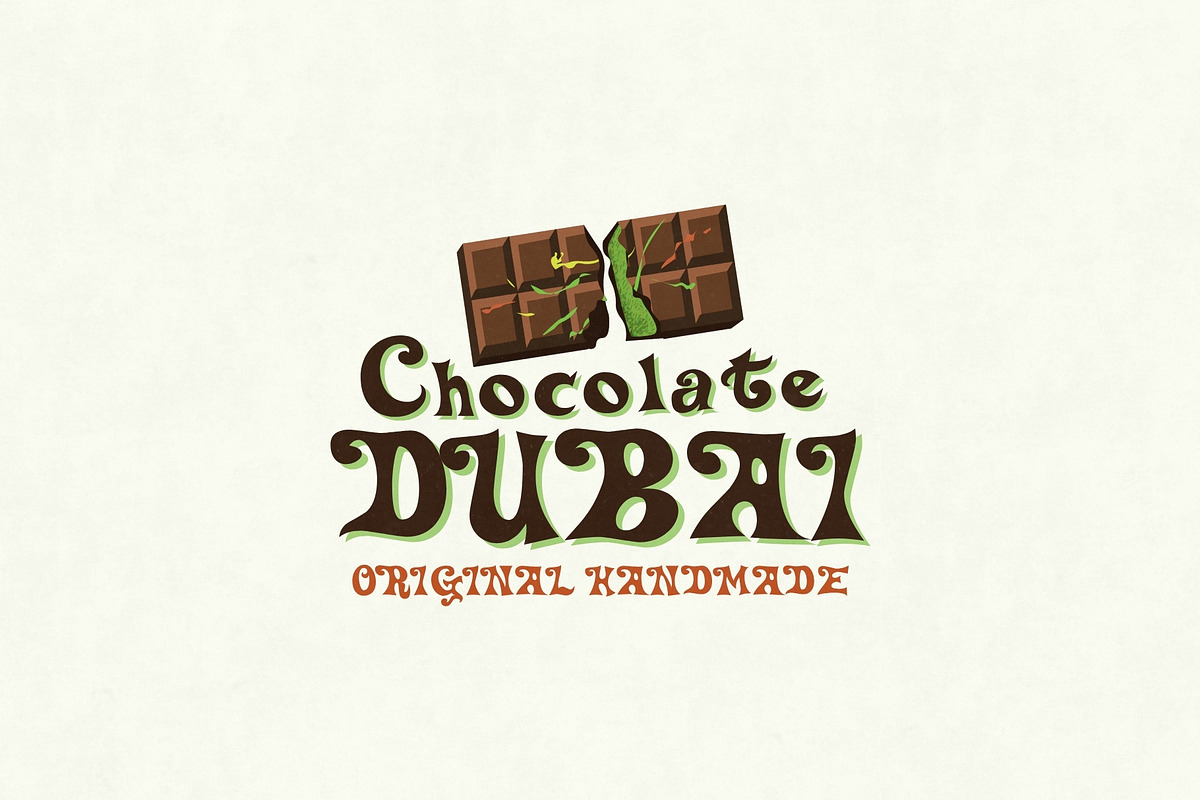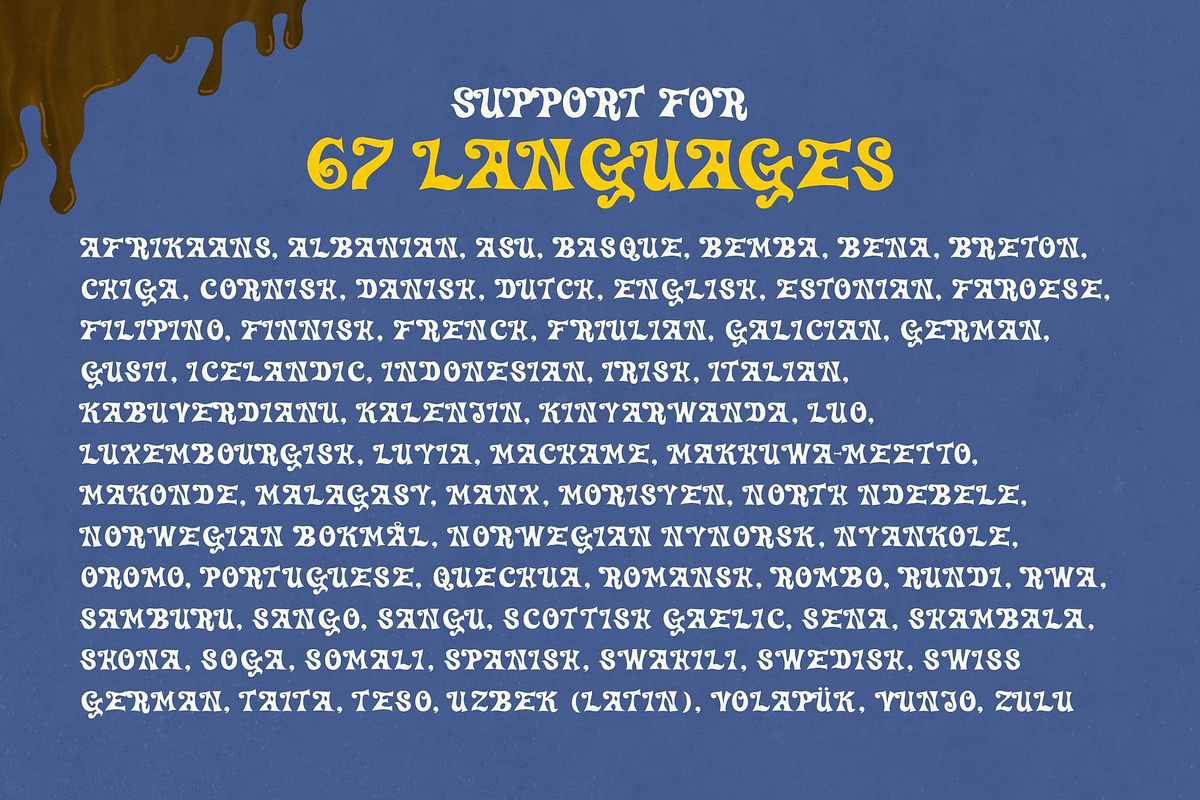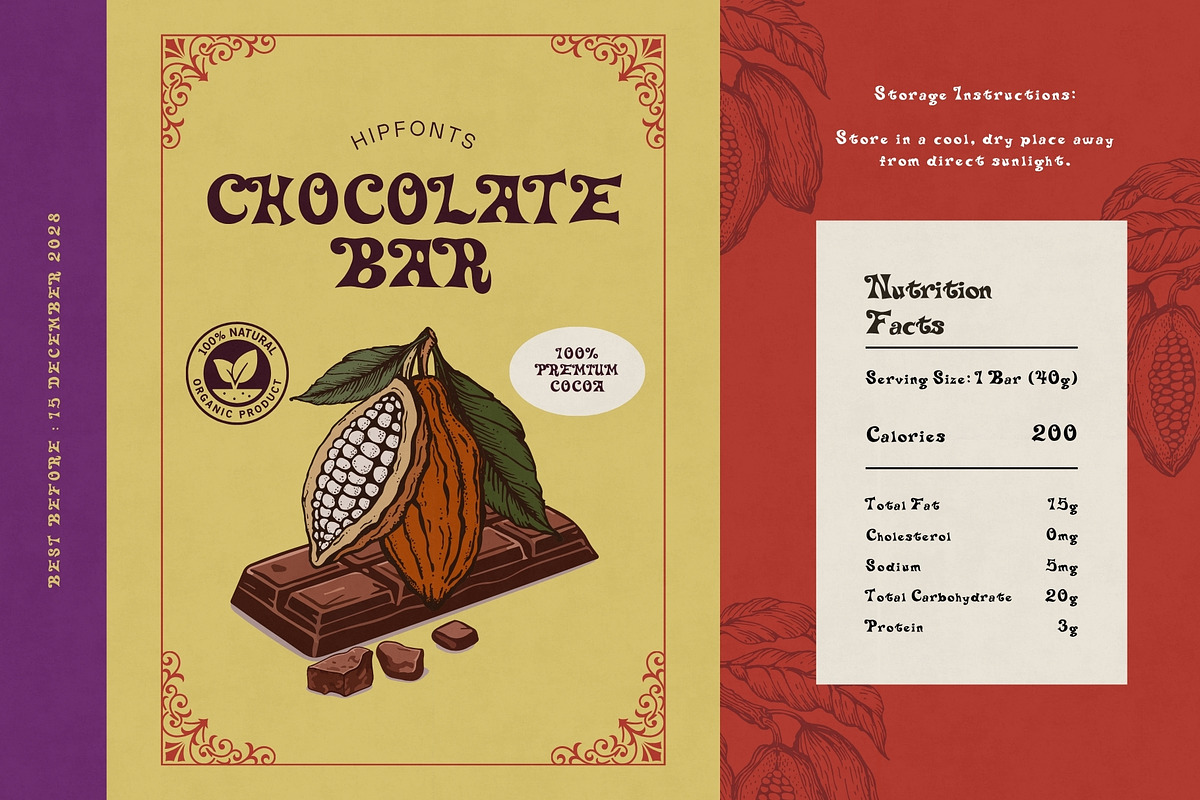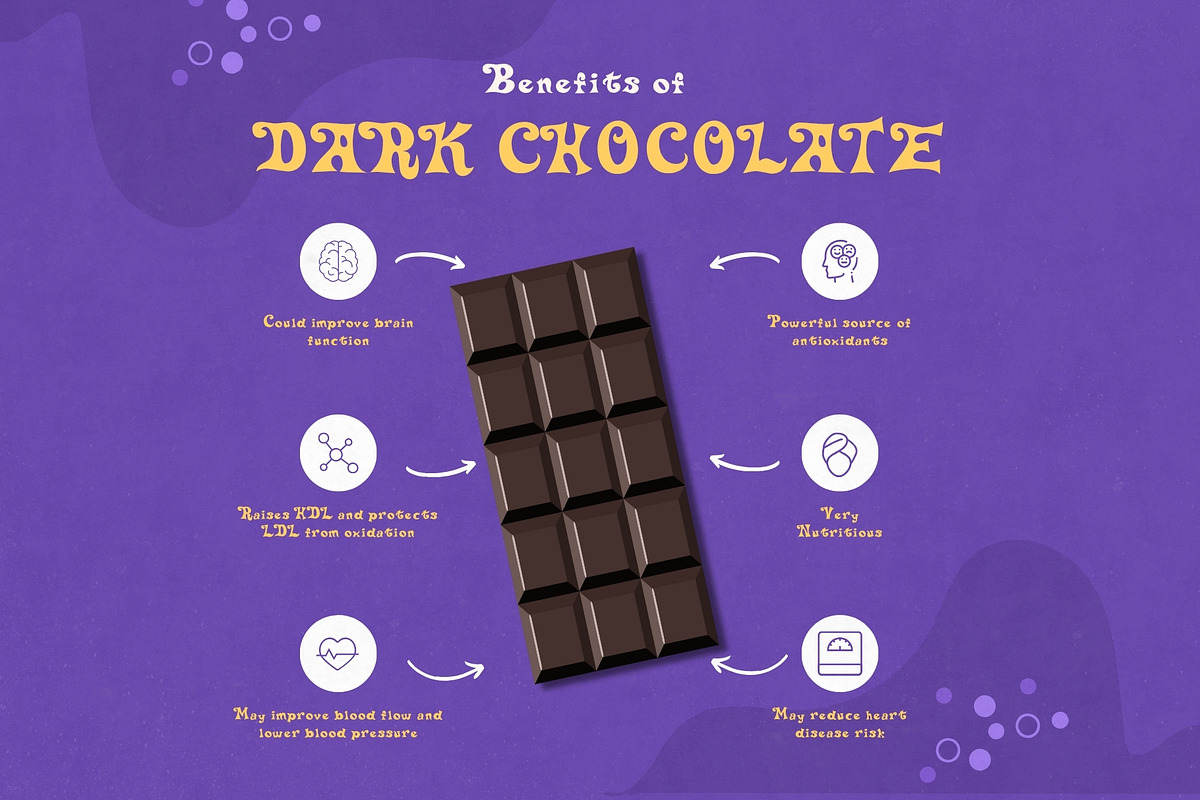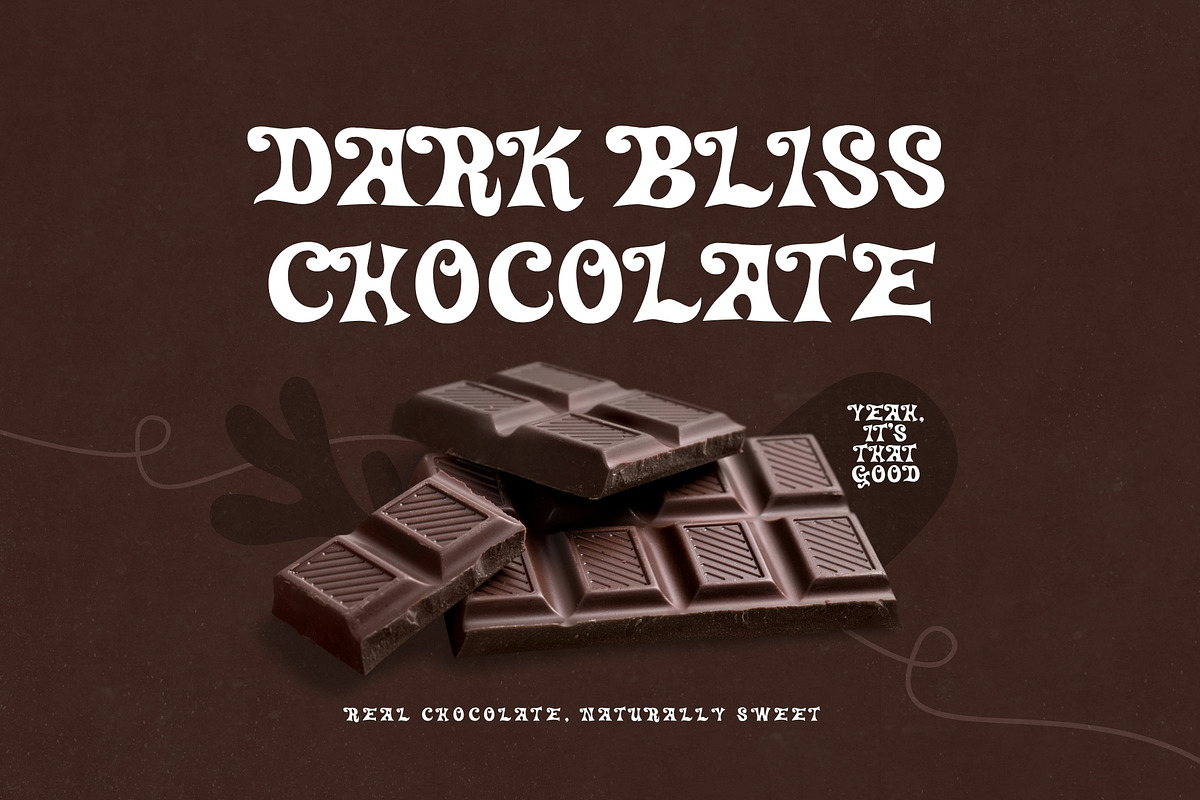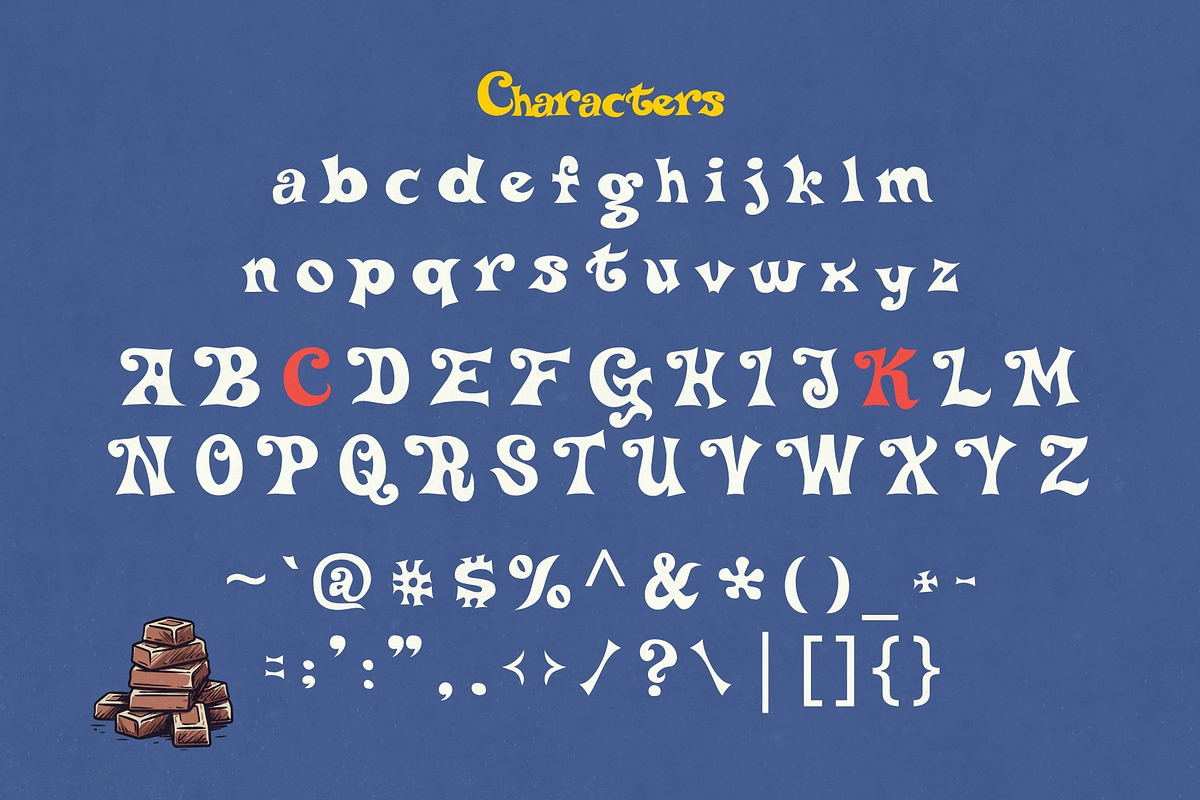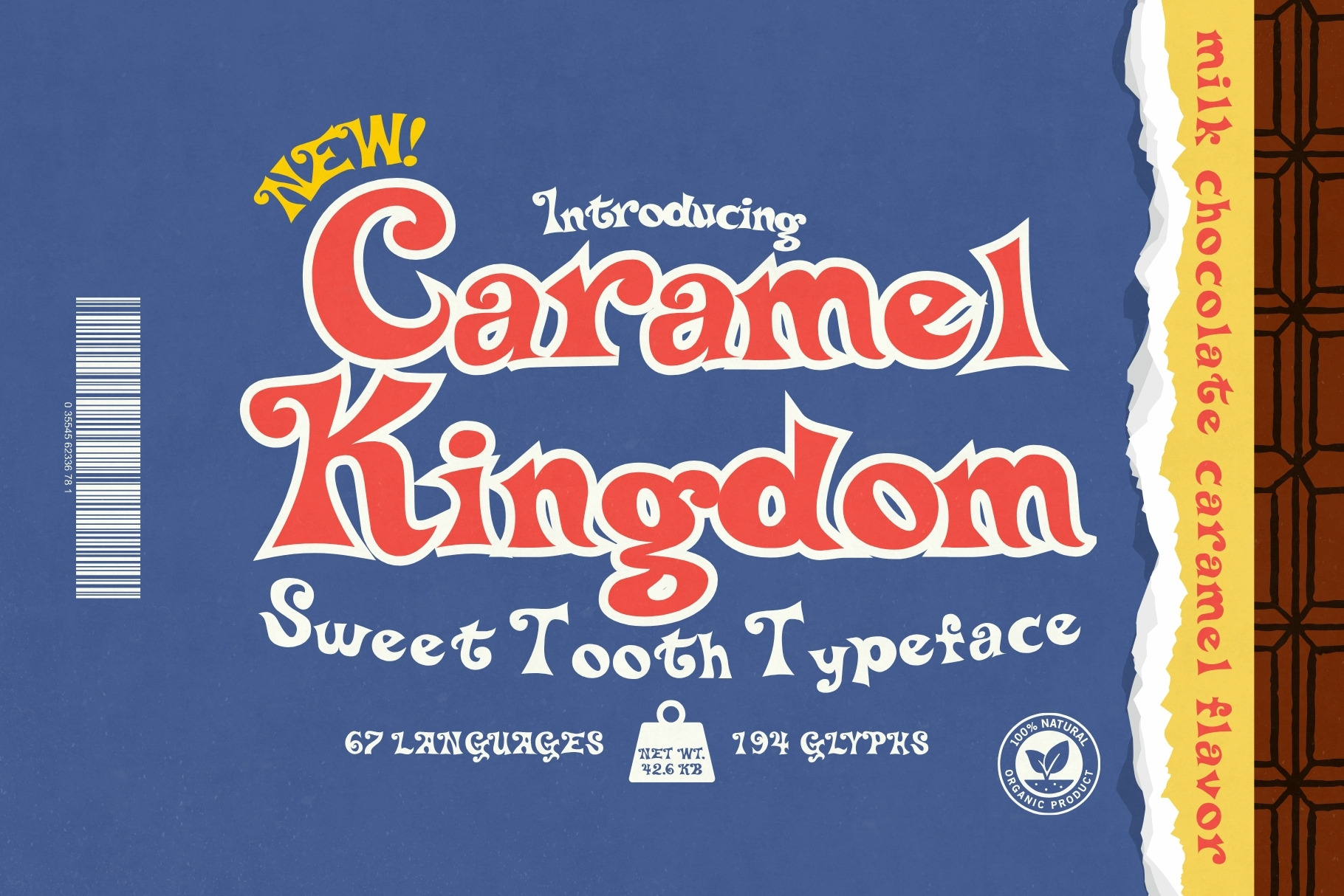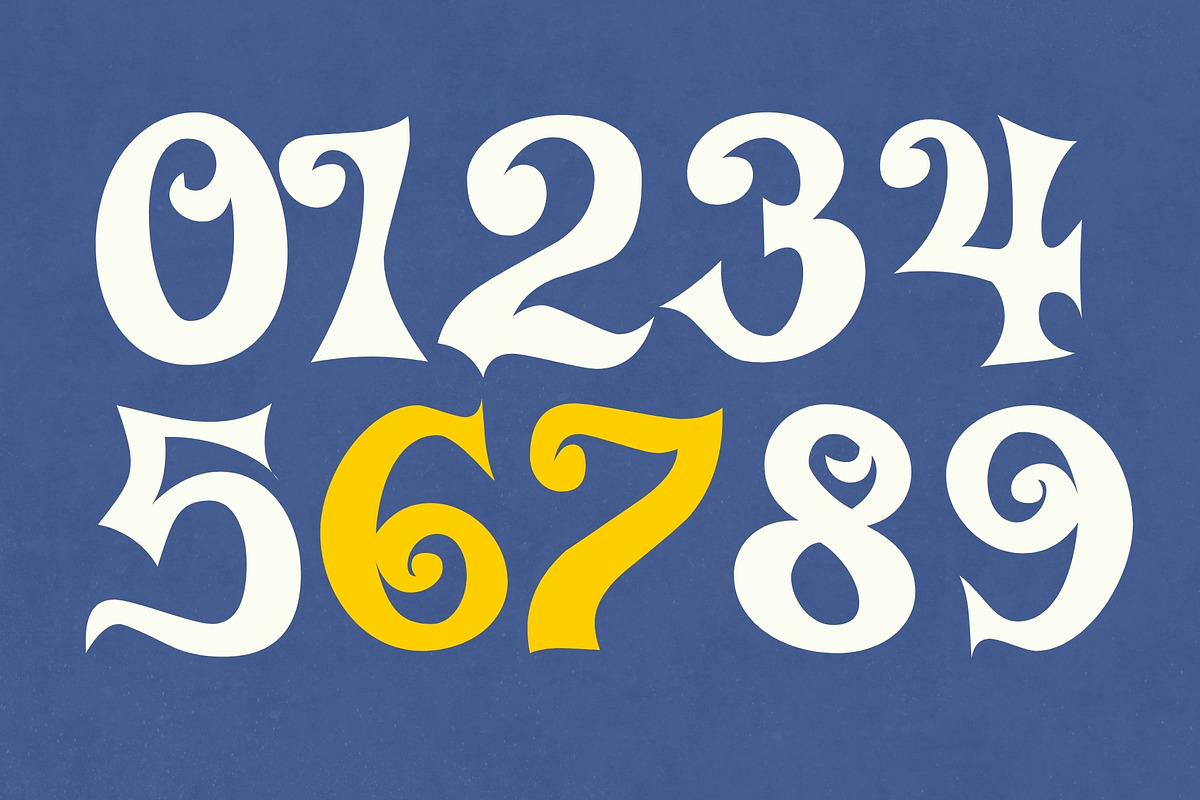
Caramel Kingdom - Candy Typeface
This whimsical and playful serif font brings a magical, fun-filled charm to any project, making it perfect for candy, chocolate, and sweets branding, packaging, and promotional materials. With its unique and memorable letterforms, Caramel Kingdom doesn’t just convey words — it tells a story, capturing attention and sparking delight.
Featuring 194 carefully crafted glyphs and support for 67 languages, this font is as versatile as it is enchanting. Its playful curves and bold personality also make it ideal for children’s books, creative designs, posters, and more, ensuring every project stands out with a touch of charm and imagination.
Turn your designs into a world of sweetness. Step into the Caramel Kingdom.